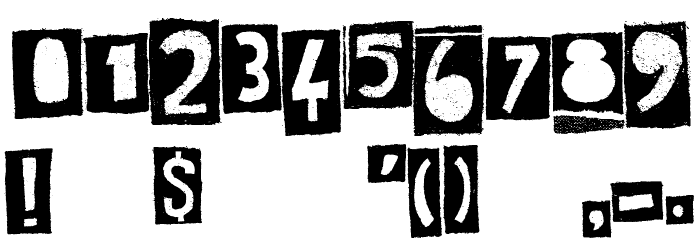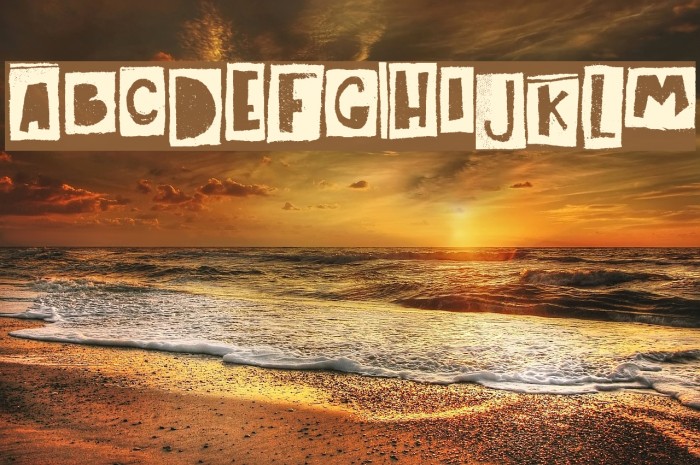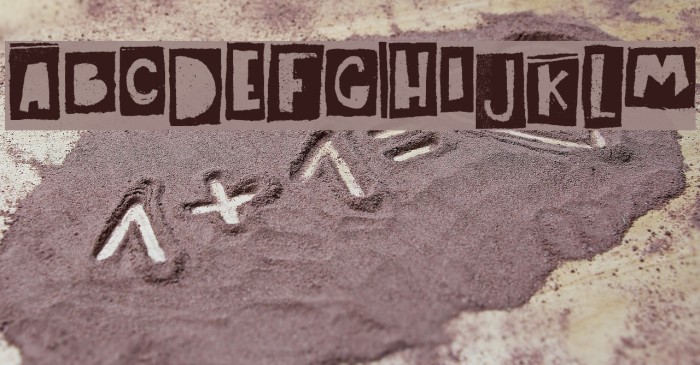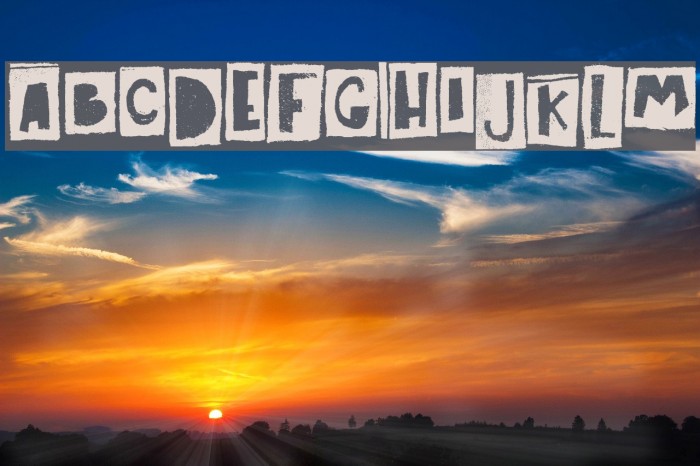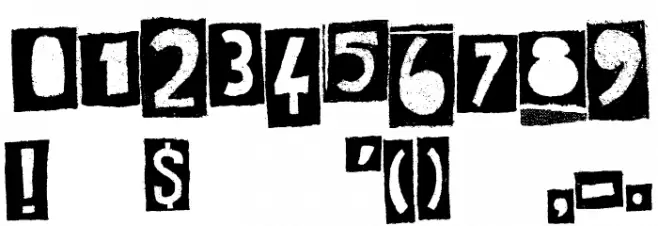
Art Post Font
This font features a bold, distressed style that mimics the appearance of letters cut from magazines or newspapers, giving it a ransom note aesthetic. Each character is enclosed in a rough, uneven square, adding to its edgy and chaotic feel. The letters are uppercase and lowercase, with a mix of solid and textured fills, creating a dynamic and eye-catching effect. The numbers and special characters follow the same design, ensuring consistency across the entire set. This font is perfect for projects that require a rebellious or unconventional look.
A bold, distressed font with a ransom note style and uneven character blocks.
- Proposed Projects: Ideal for album covers, posters, edgy branding, or any project needing a rebellious touch.